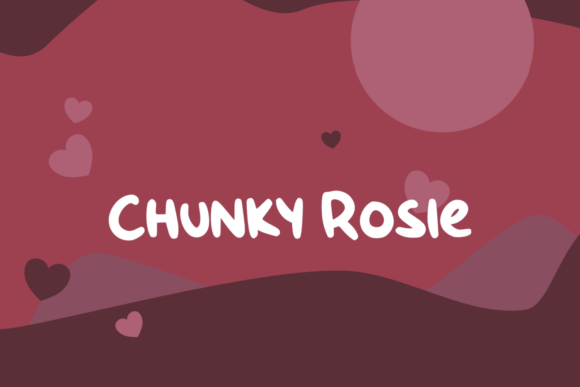
Introducing Chunky Rosie Font: The Sweet and Versatile Handwritten Font
Are you looking for a font that can add a touch of sweetness and playfulness to your designs? Look no further than Chunky Rosie Font! This charming handwritten font is perfect for creating spectacular designs that will capture the attention of your audience. In this article, we’ll dive into the features and benefits of Chunky Rosie Font, and explore how you can use it to take your designs to the next level.
What is Chunky Rosie Font?
Chunky Rosie Font is a sweet and chunky lettered handwritten font that is designed to add a touch of whimsy and playfulness to your designs. Its incredibly versatile style makes it perfect for a wide range of projects, from branding and advertising to packaging and digital media.
With its bold and chunky letters, Chunky Rosie Font is sure to make a statement in any design. But what really sets it apart is its unique blend of sweetness and sophistication. Whether you’re looking to create a fun and playful design or a more elegant and refined one, Chunky Rosie Font is the perfect choice.
Features of Chunky Rosie Font
So, what makes Chunky Rosie Font so special? Here are just a few of its key features:
- Handwritten style: Chunky Rosie Font has a unique handwritten style that gives it a personal and authentic feel.
- Chunky letters: The font’s bold and chunky letters make it perfect for creating eye-catching designs.
- Versatile style: Chunky Rosie Font is incredibly versatile, making it suitable for a wide range of projects and designs.
- Easy to read: Despite its bold and chunky style, Chunky Rosie Font is easy to read and understand.
Benefits of Using Chunky Rosie Font
So, why should you choose Chunky Rosie Font for your designs? Here are just a few of the benefits of using this amazing font:
- Adds a touch of personality: Chunky Rosie Font adds a unique and personal touch to your designs, setting them apart from the competition.
- Perfect for branding: The font’s bold and chunky style makes it perfect for creating memorable and eye-catching brand identities.
- Increases engagement: Chunky Rosie Font’s playful and whimsical style is sure to capture the attention of your audience and increase engagement.
How to Use Chunky Rosie Font
So, how can you use Chunky Rosie Font in your designs? Here are a few ideas to get you started:
- Branding and advertising: Use Chunky Rosie Font to create eye-catching brand identities and advertising campaigns.
- Packaging design: The font’s bold and chunky style makes it perfect for packaging design, adding a touch of personality to your products.
- Digital media: Use Chunky Rosie Font to create engaging and interactive digital media, such as social media graphics and website headers.
- Print design: The font is also perfect for print design, including business cards, brochures, and posters.
Tips and Tricks for Using Chunky Rosie Font
Here are a few tips and tricks for getting the most out of Chunky Rosie Font:
- Experiment with colors: Chunky Rosie Font looks great in a wide range of colors, so don’t be afraid to experiment and find the perfect hue for your design.
- Use it with other fonts: The font pairs well with other fonts, so try using it in combination with other fonts to create a unique and interesting design.
- Play with texture and patterns: Chunky Rosie Font looks great with texture and patterns, so try adding a textured or patterned background to your design.
In conclusion, Chunky Rosie Font is a sweet and chunky lettered handwritten font that is perfect for creating spectacular designs. Its incredibly versatile style makes it suitable for a wide range of projects, from branding and advertising to packaging and digital media. With its bold and chunky letters, easy-to-read style, and unique blend of sweetness and sophistication, Chunky Rosie Font is the perfect choice for designers looking to add a touch of personality and whimsy to their designs.